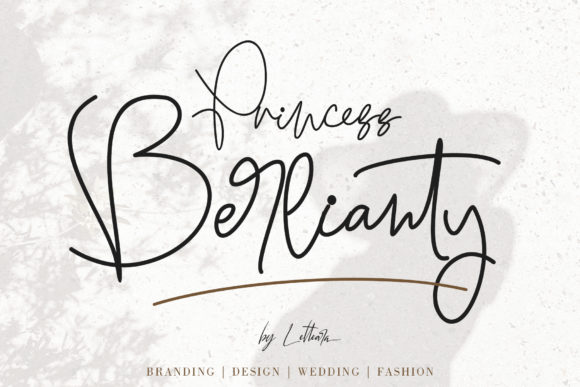
Embark on a typographic journey into the world of Princess Berlianty, a script font that exudes elegance, beauty, and timeless charm. Step into a world where words dance with grace and letters flow with harmony, creating masterpieces that captivate the eye and touch the heart.
Meet Princess Berlianty, a modern calligraphy monoline script font that evokes a sense of sophistication and refinement. Its classic and elegant touch adds a touch of luxury and sophistication to any design project, making it the perfect choice for those seeking a font that exudes class and elegance.
With its versatility, Princess Berlianty effortlessly adapts to a wide range of creative endeavors, from headings and logos to invitations and t-shirt designs. Unleash your creativity and transform your designs into works of art that leave a lasting impression.
Picture a wedding invitation adorned with the delicate strokes of Princess Berlianty, where each letter intertwines beautifully, creating a sense of romance and elegance. Or envision a logo that stands out with its modern calligraphy, conveying a sense of professionalism and stability.
Journey through the world of typography with Princess Berlianty, a font that empowers you to express yourself with style and creativity. Its versatility and charm make it the perfect companion for any design project, allowing you to create masterpieces that captivate and inspire.